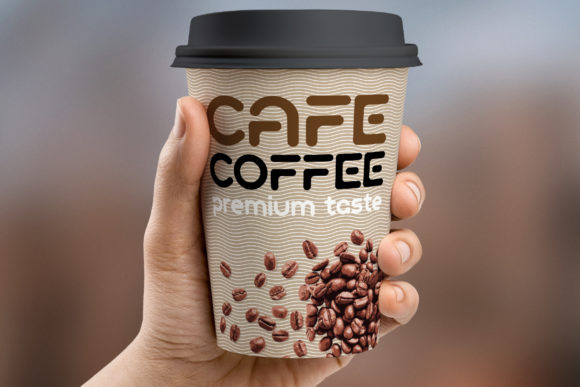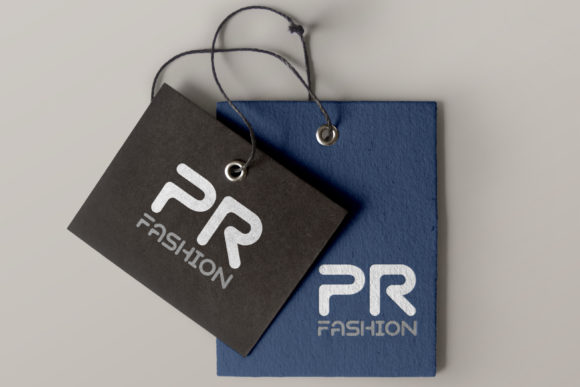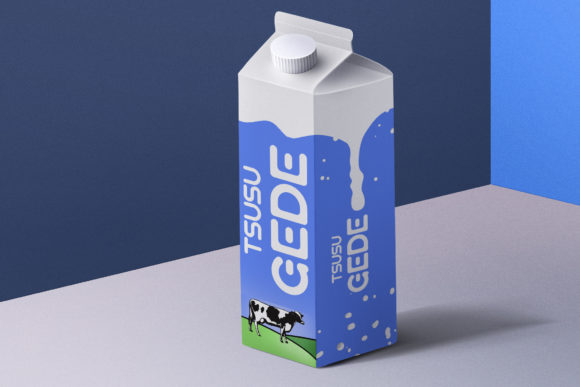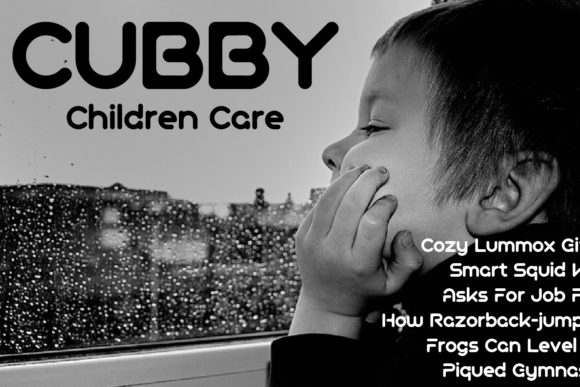
Dymbrud Font: Elevate Your Design with a Modern Sans-Serif Marvel
In the realm of typography, fonts play a pivotal role in shaping the visual identity of any design project. Among the myriad of fonts available, Dymbrud stands out as a versatile and fun sans-serif font that brings a light and modern feel to the table. With its unique charm and contemporary appeal, Dymbrud is poised to turn any design project into an eye-catcher, captivating audiences and leaving a lasting impression.
The Essence of Dymbrud Font
Dymbrud is more than just a font; it’s a design statement. Its sans-serif structure lends it a clean and minimalist aesthetic, making it perfect for projects that demand a modern and sophisticated look. The light feel of Dymbrud ensures that it remains unobtrusive, allowing the content to take center stage while subtly enhancing the visual appeal of the design.
One of the key strengths of the Dymbrud font is its versatility. Whether you’re working on a branding project, a website design, a marketing campaign, or crafting a DIY project, Dymbrud seamlessly adapts to various contexts. Its modern feel ensures that it stays relevant across different mediums, from digital platforms to print materials.
Why Choose Dymbrud?
- Modern Aesthetic: Dymbrud’s contemporary design makes it an excellent choice for projects aiming for a modern and fresh look.
- Readability: The clear and clean lines of Dymbrud enhance readability, making it suitable for body text as well as headlines.
- Fun and Engaging: Despite its modern and light feel, Dymbrud does not compromise on fun. It adds a playful touch to designs without appearing too casual.
- Wide Range of Applications: From professional branding to personal crafting projects, Dymbrud’s adaptability knows no bounds.
Applications of Dymbrud Font
Dymbrud’s wide range of applications is a testament to its flexibility and broad appeal. Designers can use Dymbrud in:
- Website Design: Enhance user experience with a font that is both modern and readable.
- Branding and Logo Design: Create memorable brand identities with Dymbrud’s unique and engaging style.
- Marketing Materials: Make your marketing campaigns stand out with a font that captures attention.
- Crafting and DIY Projects: Add a professional touch to personal projects with Dymbrud’s modern appeal.
Tips for Using Dymbrud Effectively
To maximize the impact of Dymbrud, consider the following tips:
- Mix and Match: Combine Dymbrud with other fonts to create visual interest and hierarchy.
- Adjust Size and Weight: Play with different sizes and weights of Dymbrud to add depth to your design.
- Color Matters: Choose colors that complement Dymbrud’s light and modern feel to enhance its appearance.
Dymbrud font emerges as a powerful tool in the arsenal of designers and crafters, offering a perfect blend of modernity, versatility, and fun. Its light and modern feel, coupled with its sans-serif structure, makes it an ideal choice for a wide array of design projects. By incorporating Dymbrud into your designs, you’re not just choosing a font; you’re embracing a design philosophy that prioritizes clarity, engagement, and aesthetic appeal. Elevate your designs with Dymbrud and witness how a simple typographic choice can transform your project into an eye-catcher.